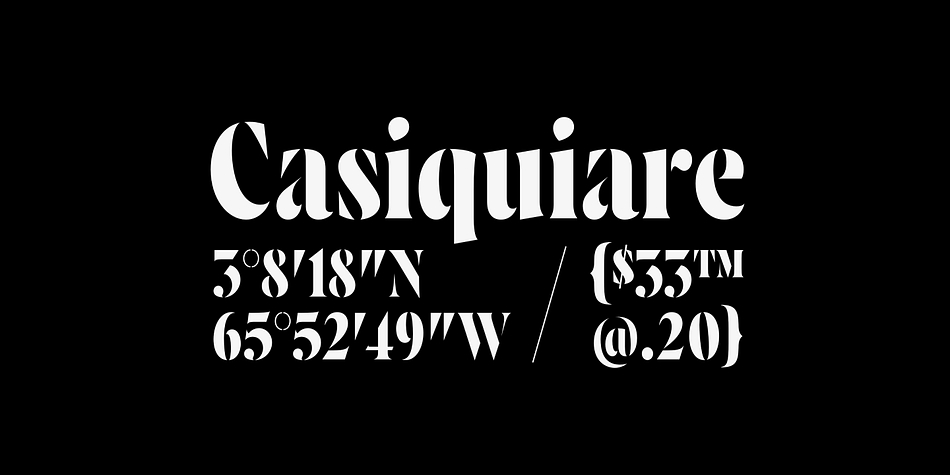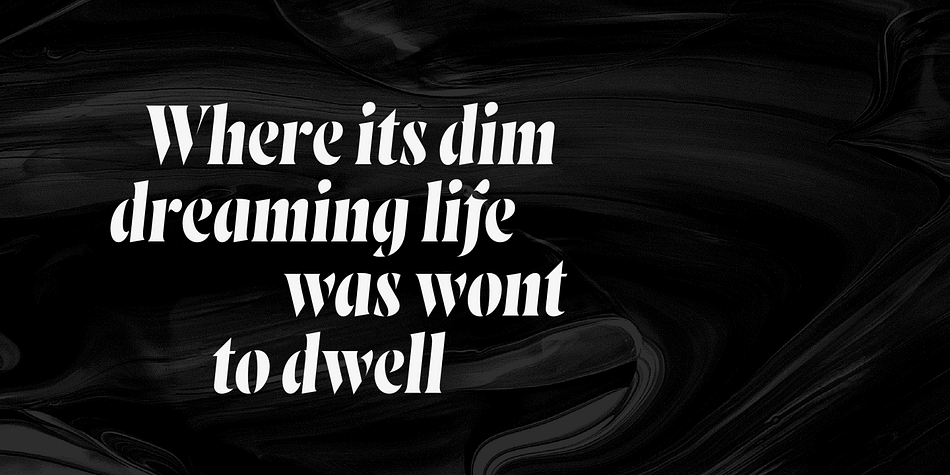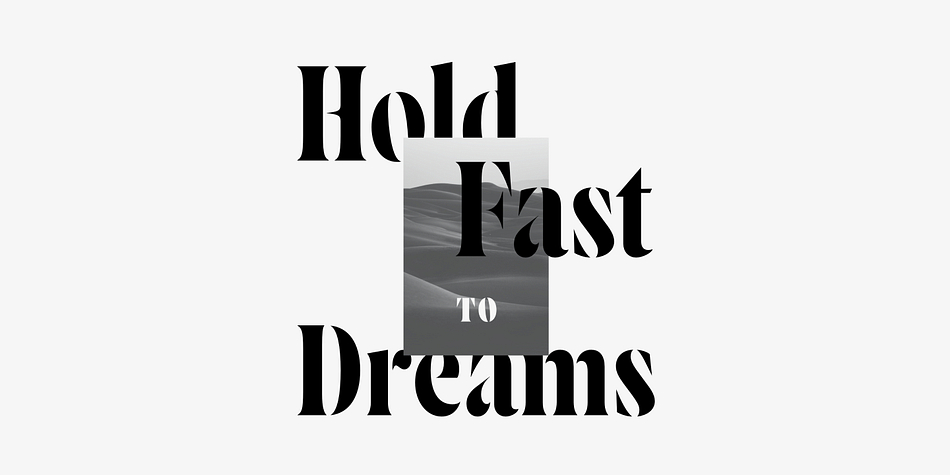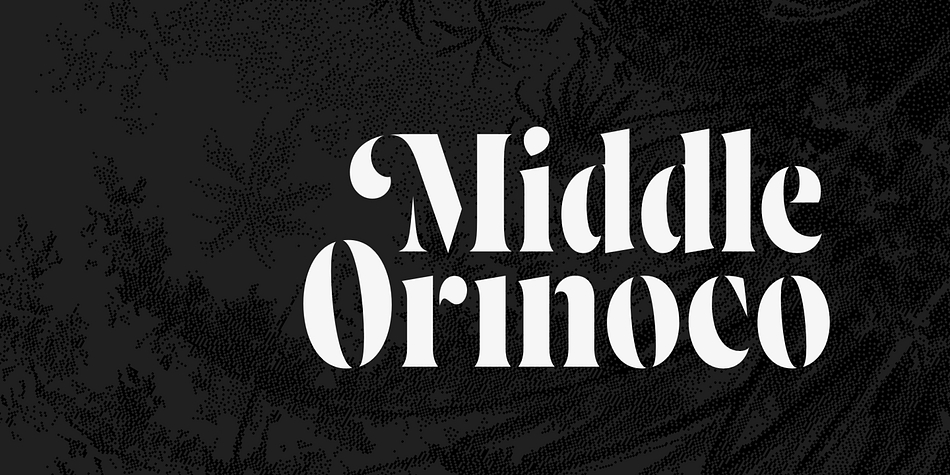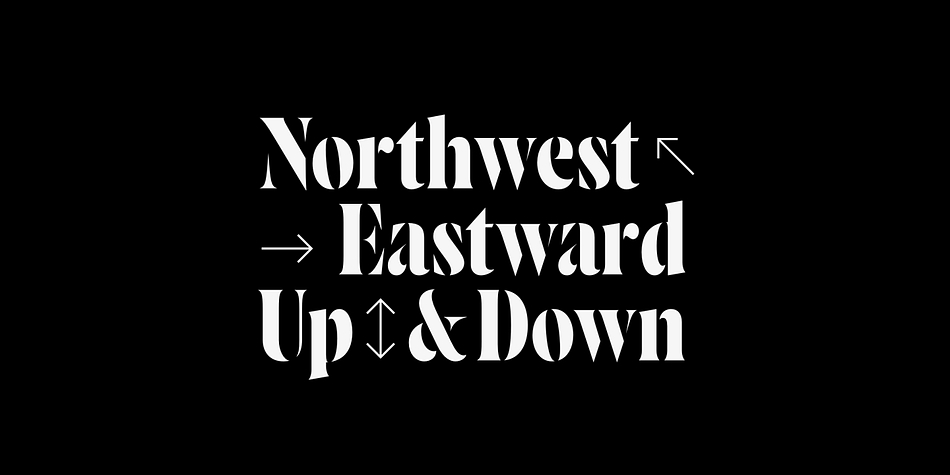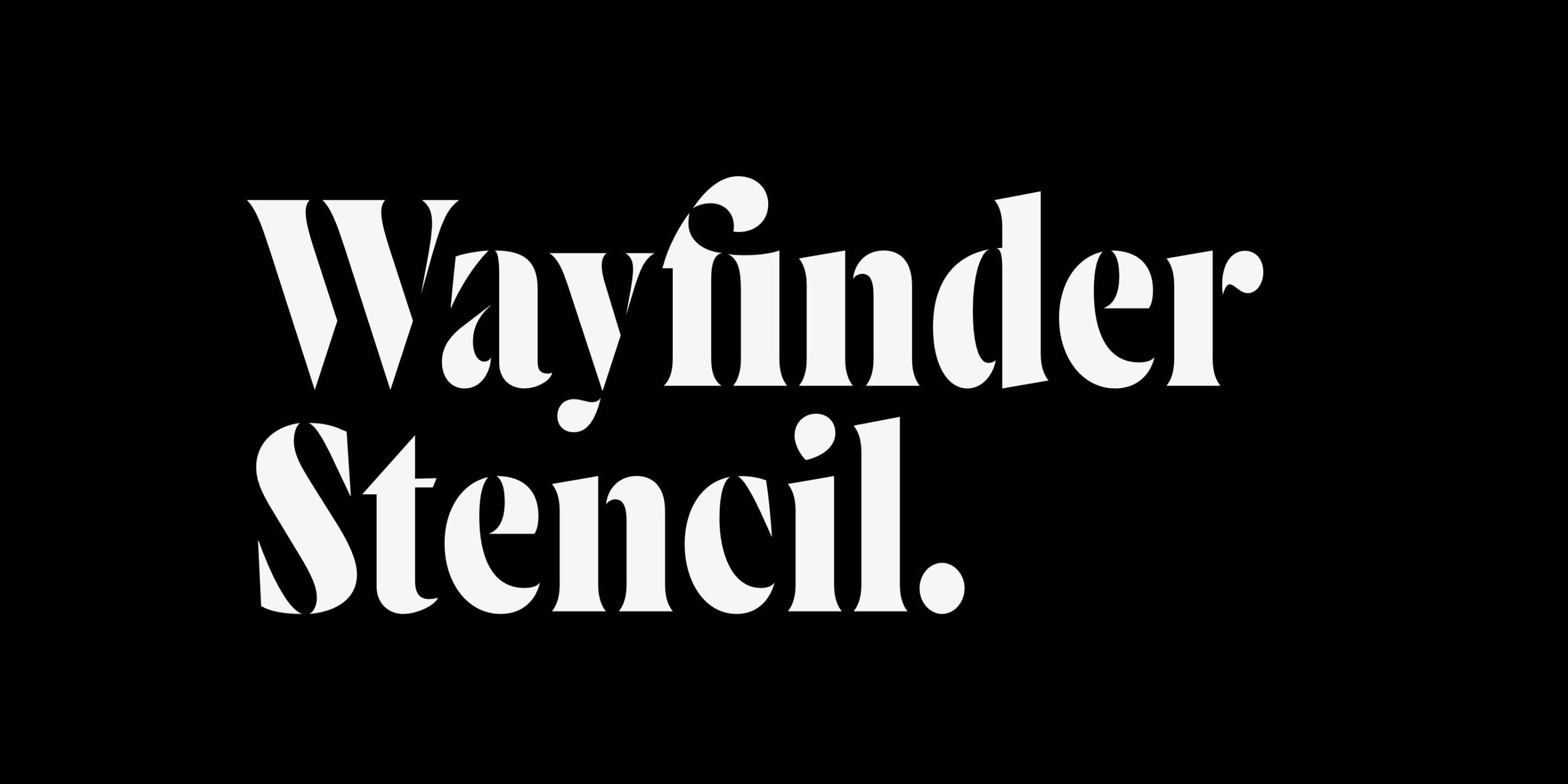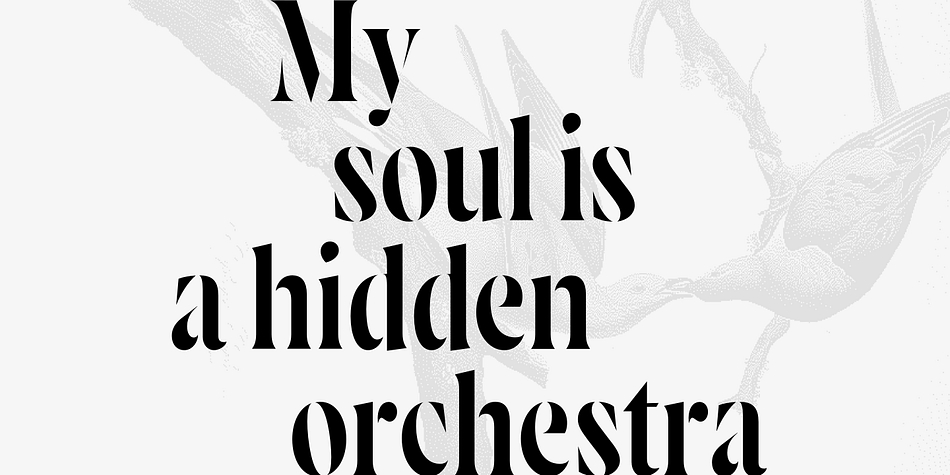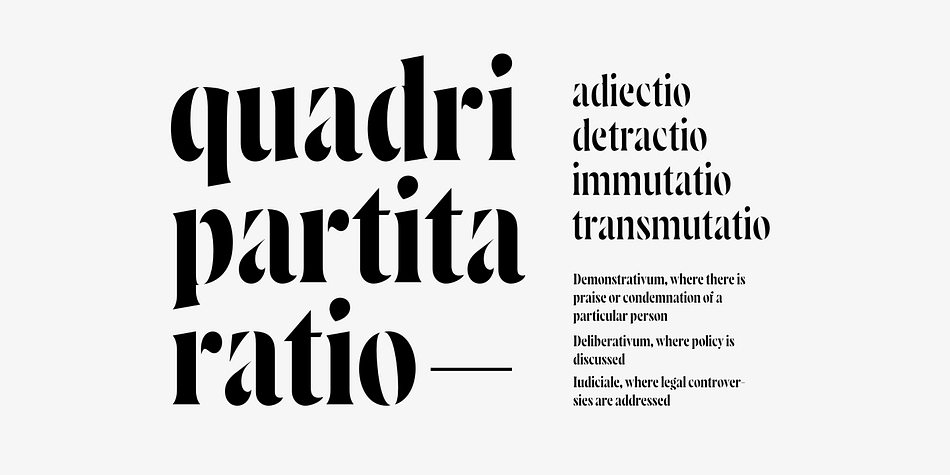
Designed by Connary Fagen, Wayfinder Stencil CF is a display serif, serif and stencil font family. This typeface has fourteen styles and was published by Connary Fagen Type Design.
Wayfinder Stencil CF is a stencil serif built for branding, logos, and headlines. Its dramatic curves and contrast are perfect for fashion, tech, art, food, and packaging. Seven weights and italics provide a wide range of elegant applications.